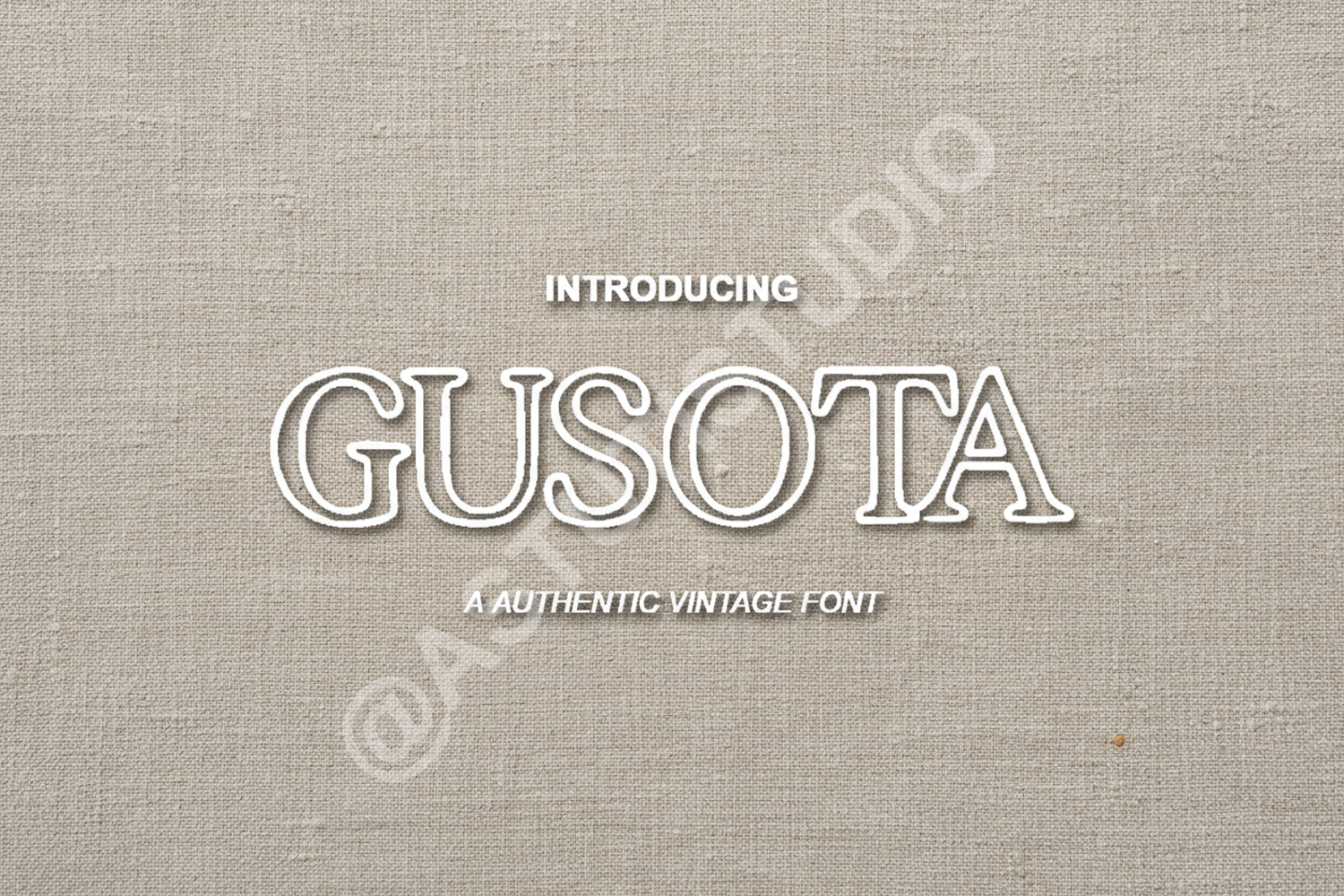
Gusota - Modern Geometric Sans Serif
Gusota
Gusota is a premium geometric sans serif typeface that balances modern minimalism with exceptional legibility. Designed for designers who demand precision and versatility, this font brings a clean, sophisticated edge to any creative project. Whether you are building a high-end brand identity or designing a sleek user interface, Gusota provides the perfect typographic foundation.
- Full character set including uppercase, lowercase, numbers, and punctuation
- Multilingual support for global accessibility
- Branding and Identity: Create memorable logos and professional corporate stationery.
- Editorial Design: Perfect for magazine layouts, bold headers, and clean body text.
- Web and UI/UX: High legibility for digital interfaces and mobile application design.
- Marketing Materials: Elevate posters, brochures, and social media graphics.
- Packaging: Add a touch of modern luxury to product labels and containers.